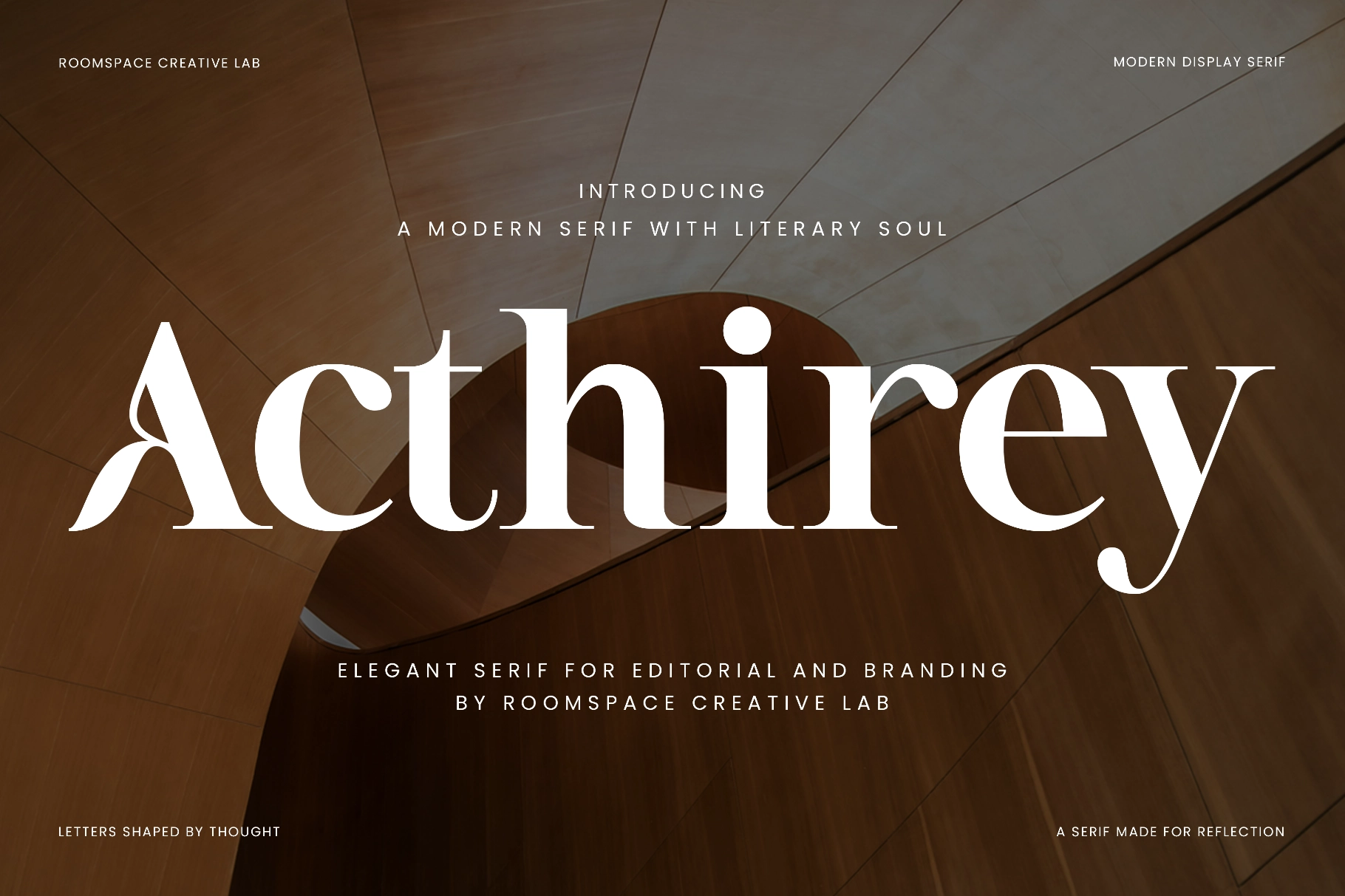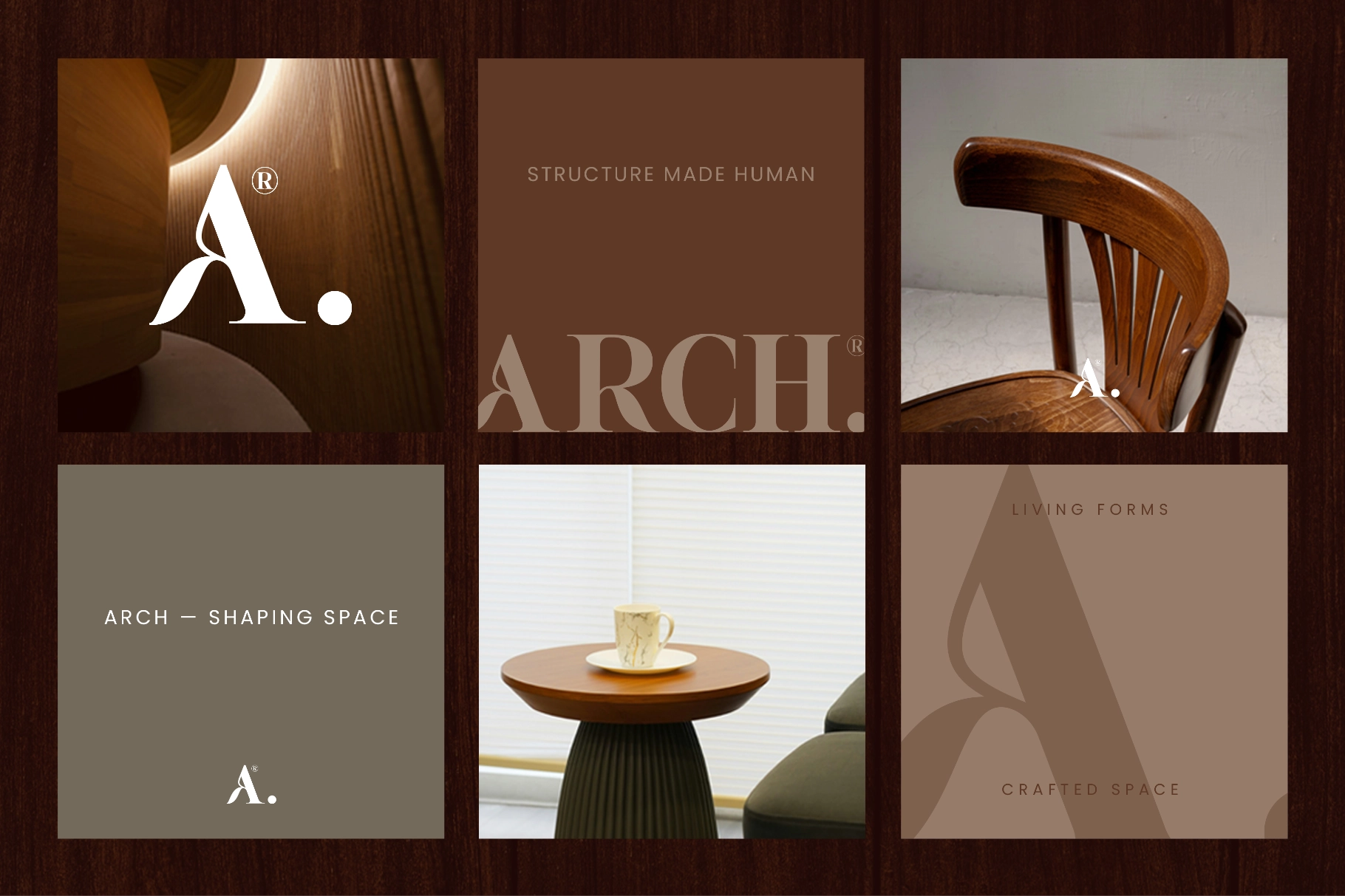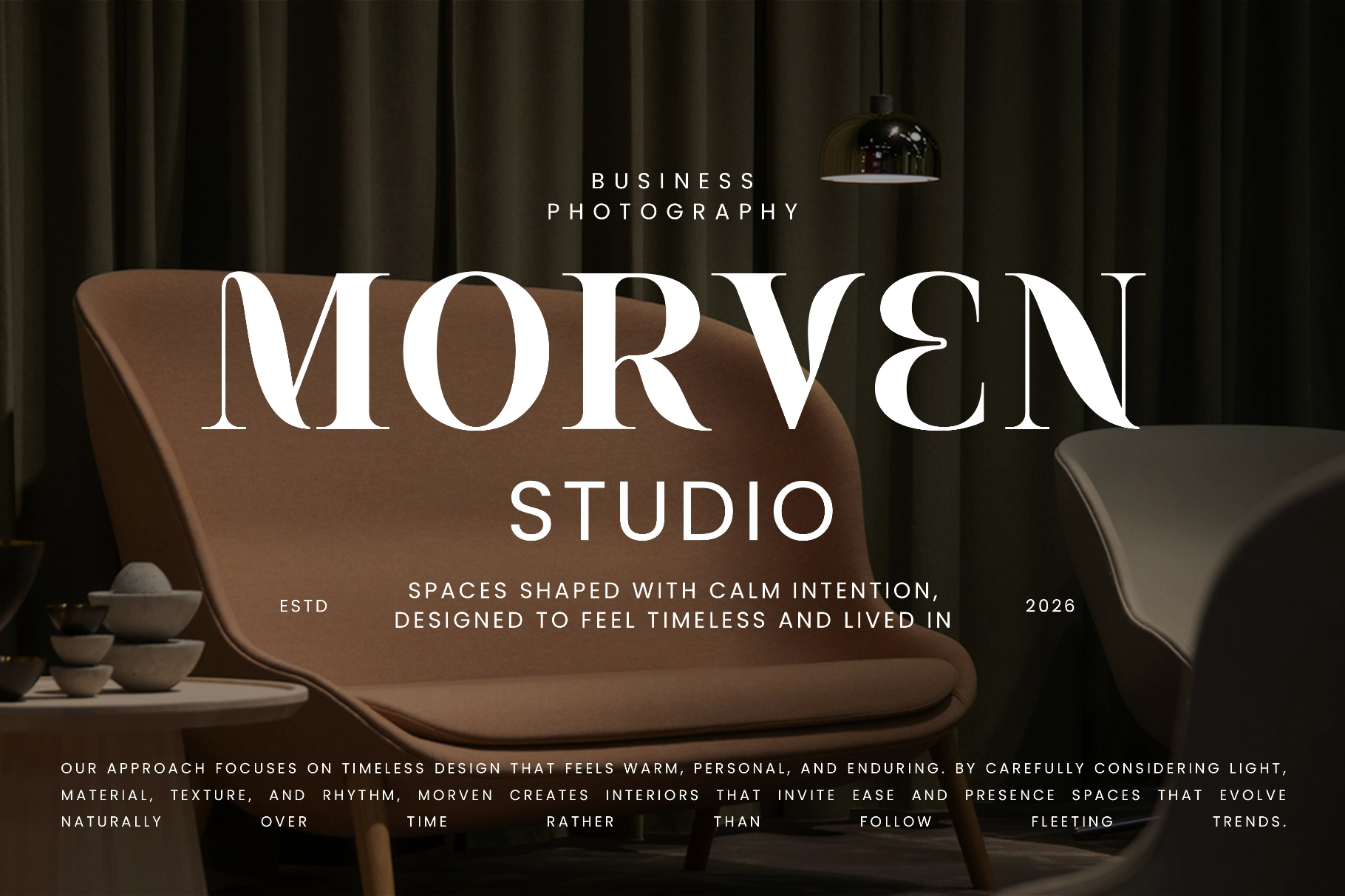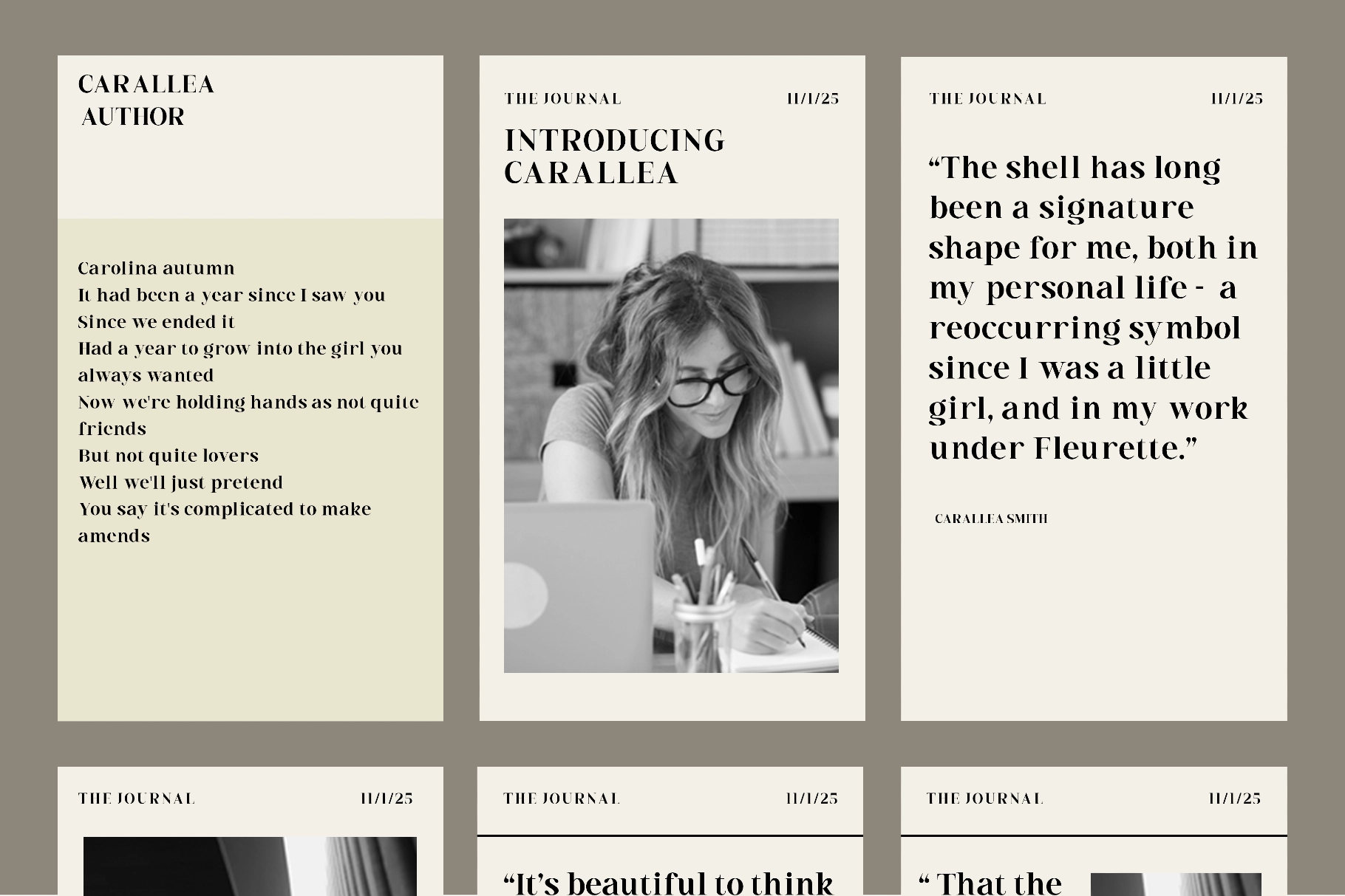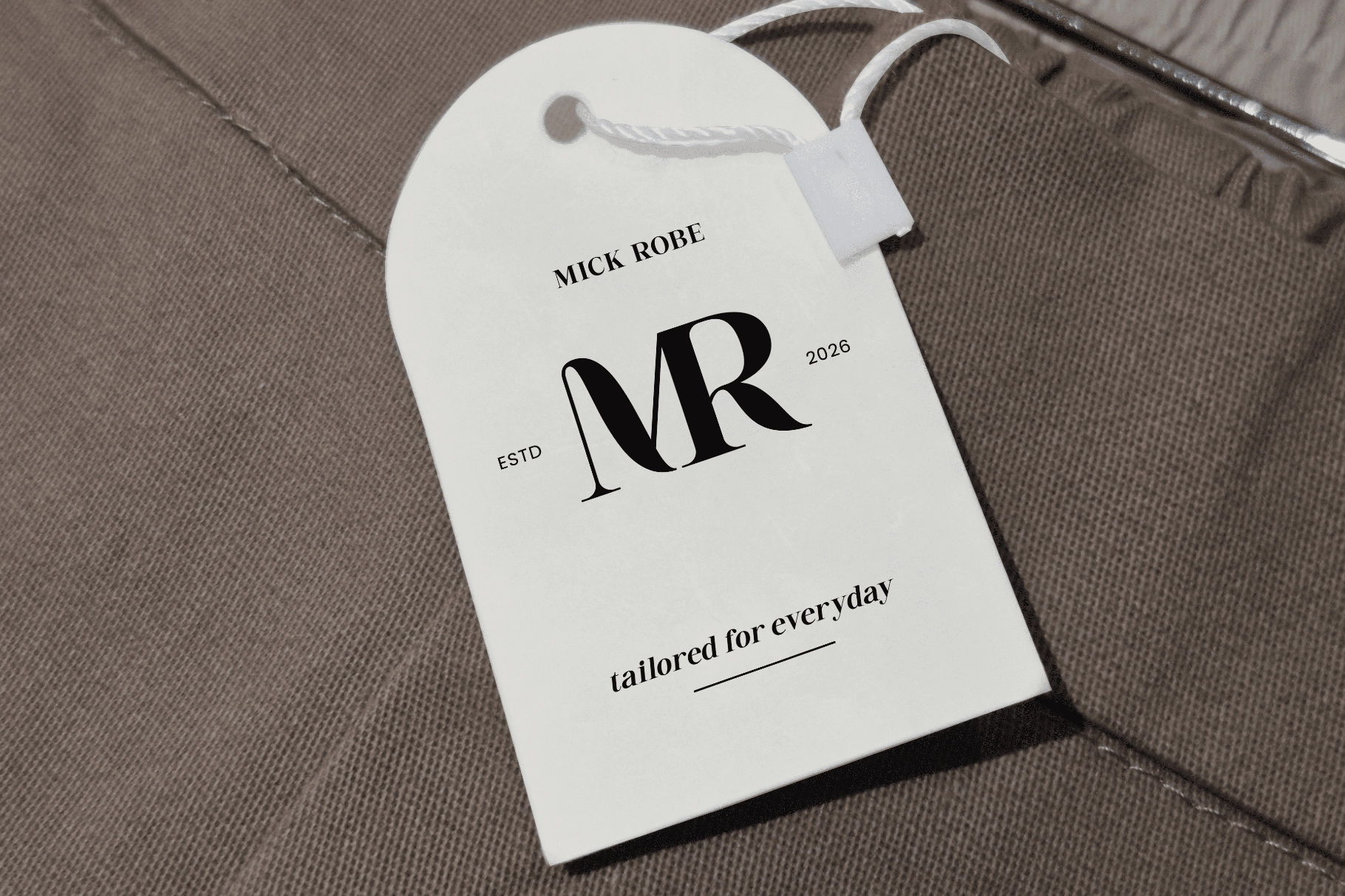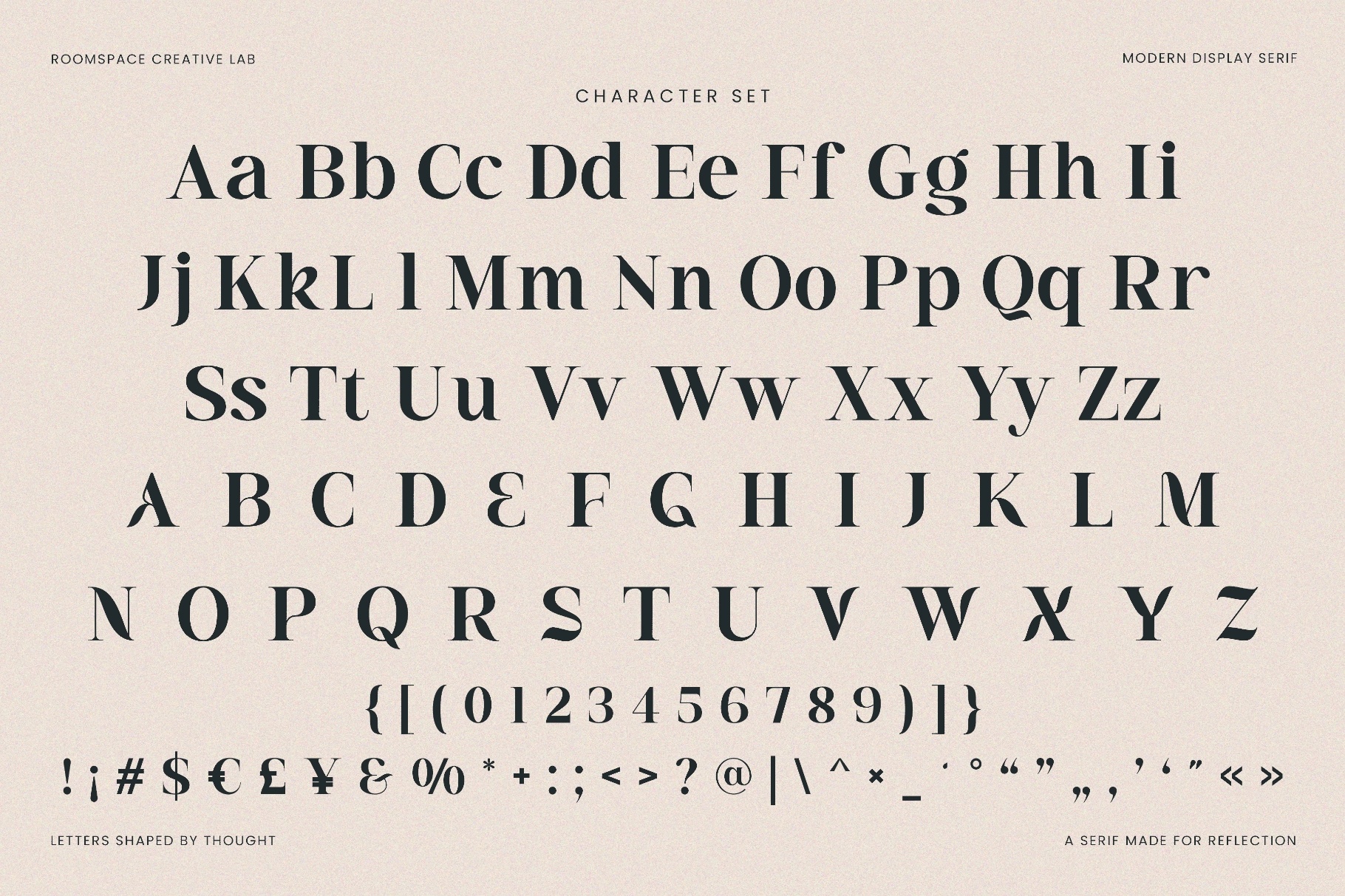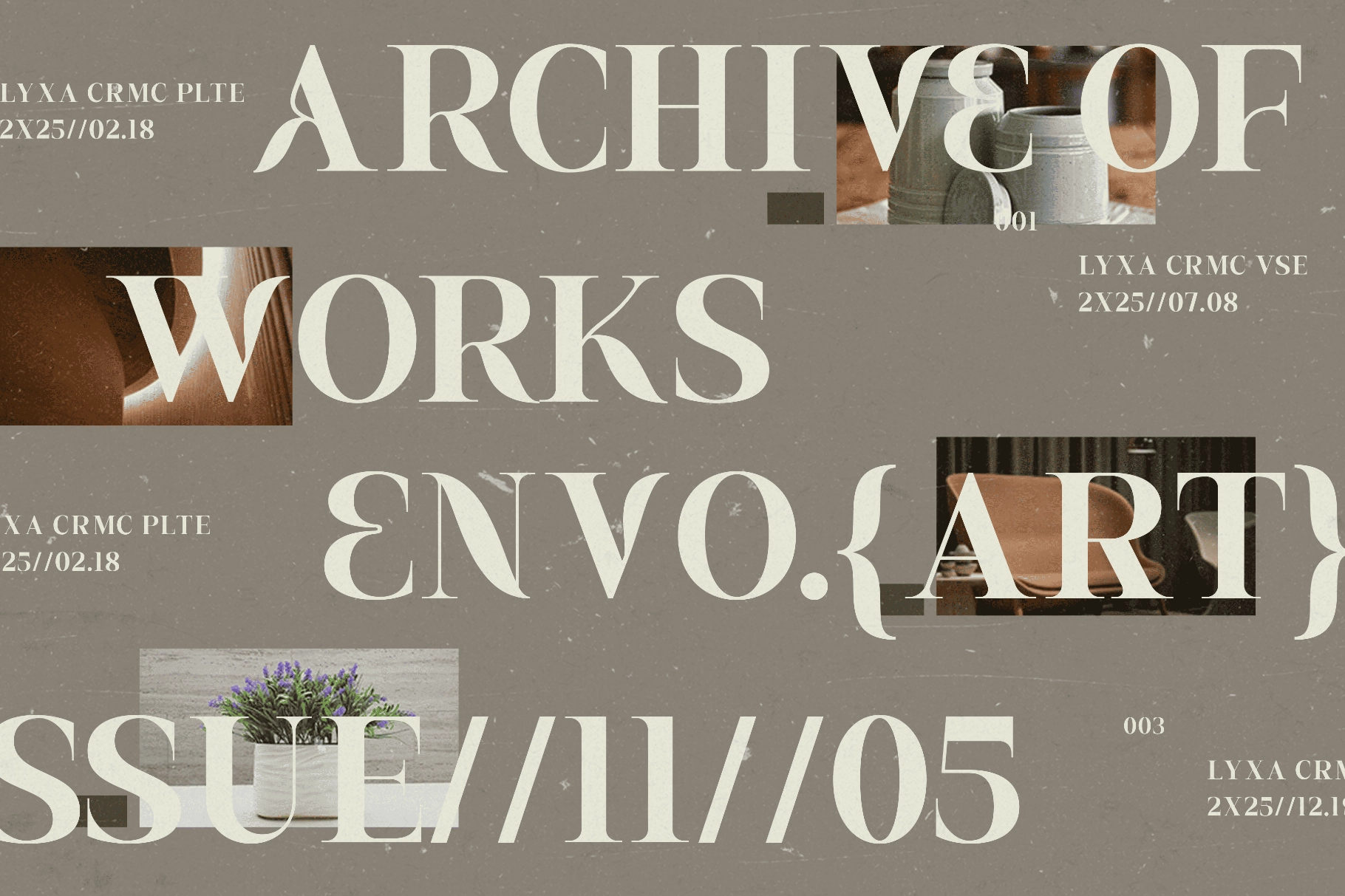
Acthirey – Modern Editorial Serif Font
This elegant serif has high contrast, sculpted terminals, and sharp architectural curves that give headlines a composed, literary presence. Its character set balances classic bookish structure with bold display proportions, making it strong for editorial layouts, refined identities, and visual systems with a serious face and excellent posture.
Use Acthirey for magazine titles, book covers, author branding, gallery posters, luxury logos, fashion campaigns, studio identities, website headers, packaging, lookbooks, art catalogs, quote layouts, photography branding, and more. It is especially effective in large-scale typography, where the dramatic curves and clean spacing can carry the whole composition without shouting across the room.